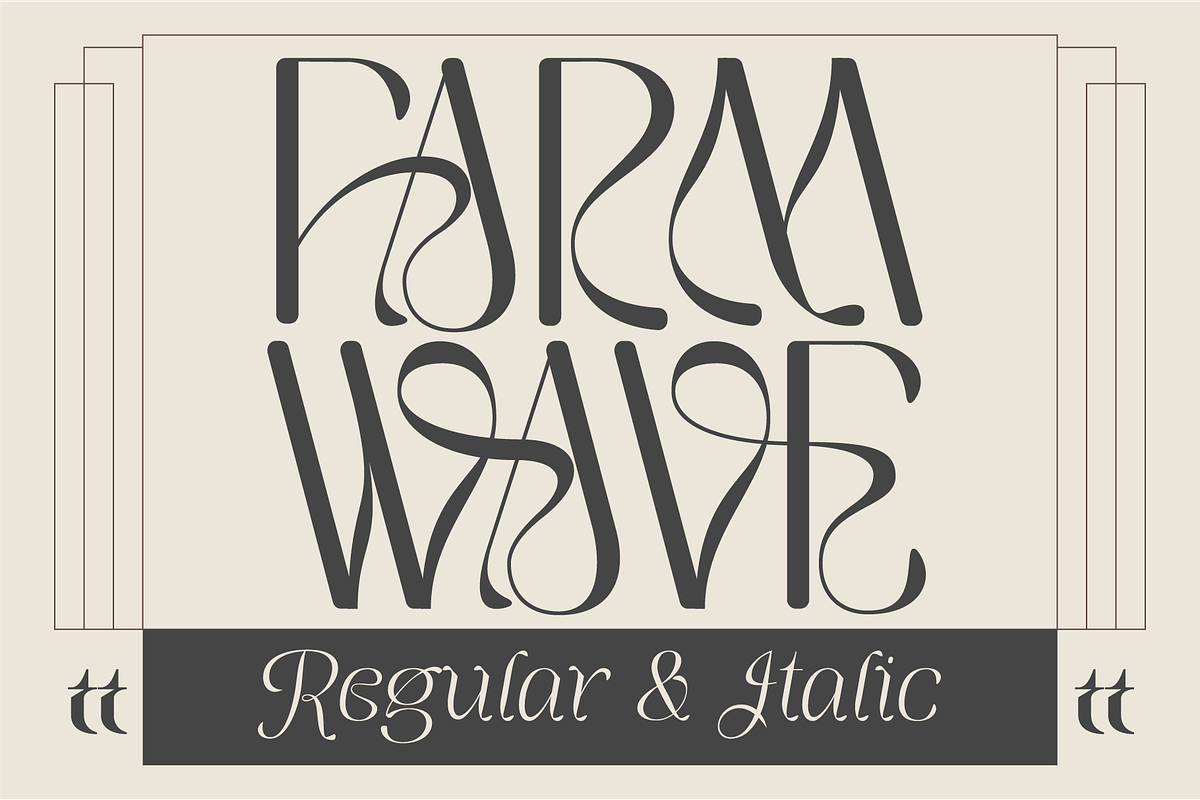
You must purchase this font for commercial use. However, you can download Farm Wave Font – Regular & Italic Free Download for testing purposes. Farm Wave is a charming and rustic serif font with a subtle vintage feel. Available in both regular and italic styles, it is ideal for creating designs that require a cozy, inviting vibe, such as logos, product packaging, branding, invitations, and more.
The regular style provides clean, easy-to-read letterforms, while the italic version offers a touch of elegance and fluidity, making it perfect for creative headings, taglines, and quotes. Whether you're designing for a boutique, farm-to-table business, or personal projects with a rustic or handcrafted touch, Farm Wave Font – Regular & Italic Free Download allows you to explore its versatile appeal.